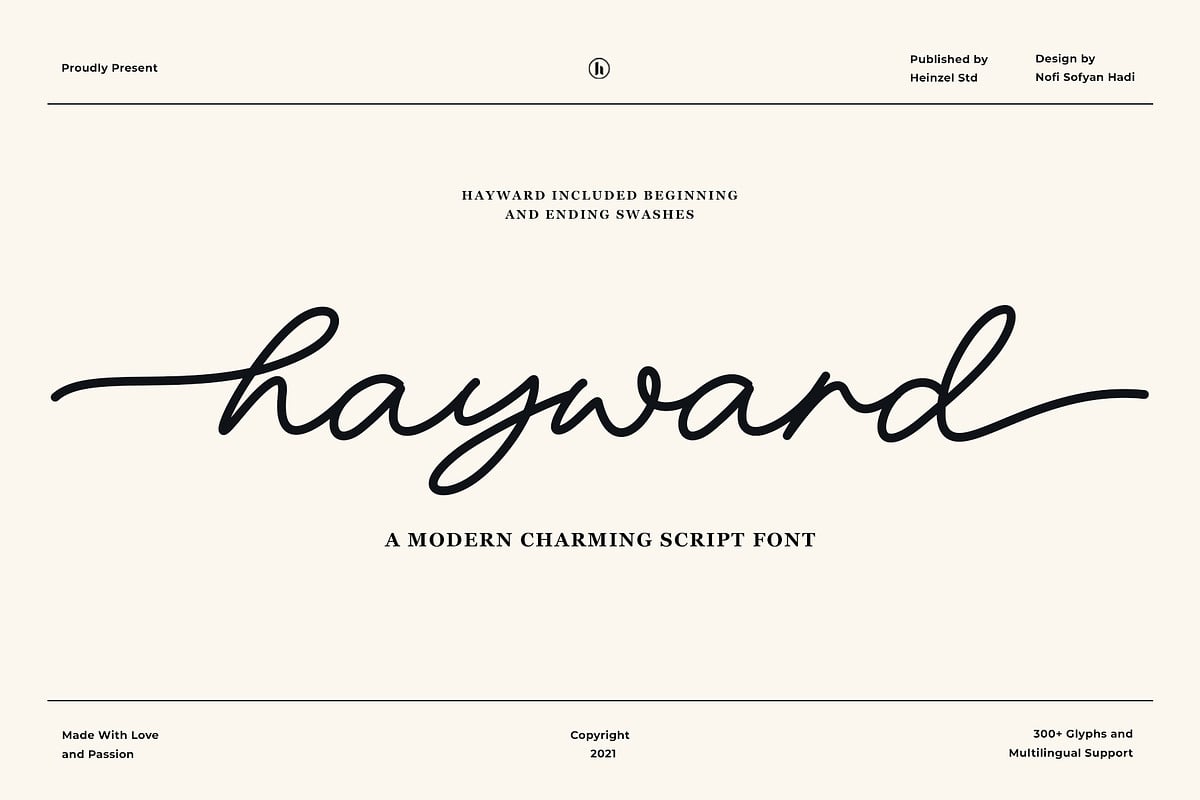
Hayward Modern Charming Script Font
Hayward is a flowing handwritten script font that brings elegant, signature-style sophistication to any creative project.
Designed with smooth, natural strokes and authentic letter connections, Hayward captures the feel of a beautifully handwritten signature. Its expressive yet clean character makes it equally at home in refined branding and personal creative work.
Key features include:
- Beginning and ending swashes for an authentic handwritten signature look
- 300+ glyphs for expressive typographic flexibility
- Multilingual support for global creative projects
- Smooth flowing strokes with natural letter connections
Hayward is perfectly suited for a wide range of design applications, including:
- Logos, signatures, and visual identity branding
- Wedding stationery and invitations
- Packaging and product labels
- Social media graphics and quotes
- Fashion and apparel designs
- Photography and editorial layouts
- Personal branding projects